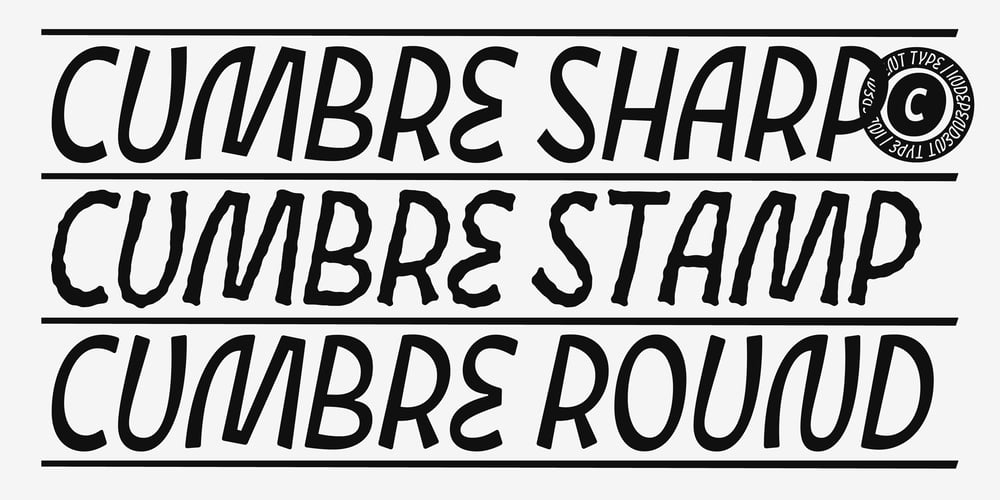
Cumbre Font Family was designed by Julia Martinez Diana and published by Antipixel. Cumbre contains 3 styles and family package options. Cumbre is a slanted display type with unorthodox anatomy, a dynamic rhythmic structure, movement expression, and intense visual language. An eccentric rebel with ribbon-like moves, a balanced extrovert that makes meticulous use of ink traps.Both the name and design got inspiration from mountain peaks. “Cumbre” in Spanish means summit, and that’s the motive for the spiked design and the angular serrated structure.Cumbre is built by balancing sharp angles and venturous curves. The stems are spiky, and they vary in width. Cumbre is slanted and unicase. It has condensed proportions, moderate weight contrast, spacious counters, pointy terminals, and square ink traps.Cumbre is meant for large display settings to make the most out of the precise outlines and the clean intersections.The font styles: ‘Sharp’ has straight paths and precise intersections. ‘Round’ has the same outlines but with round corners. ‘Stamp’ has irregular wavy contours and heavy swelling at intersections.